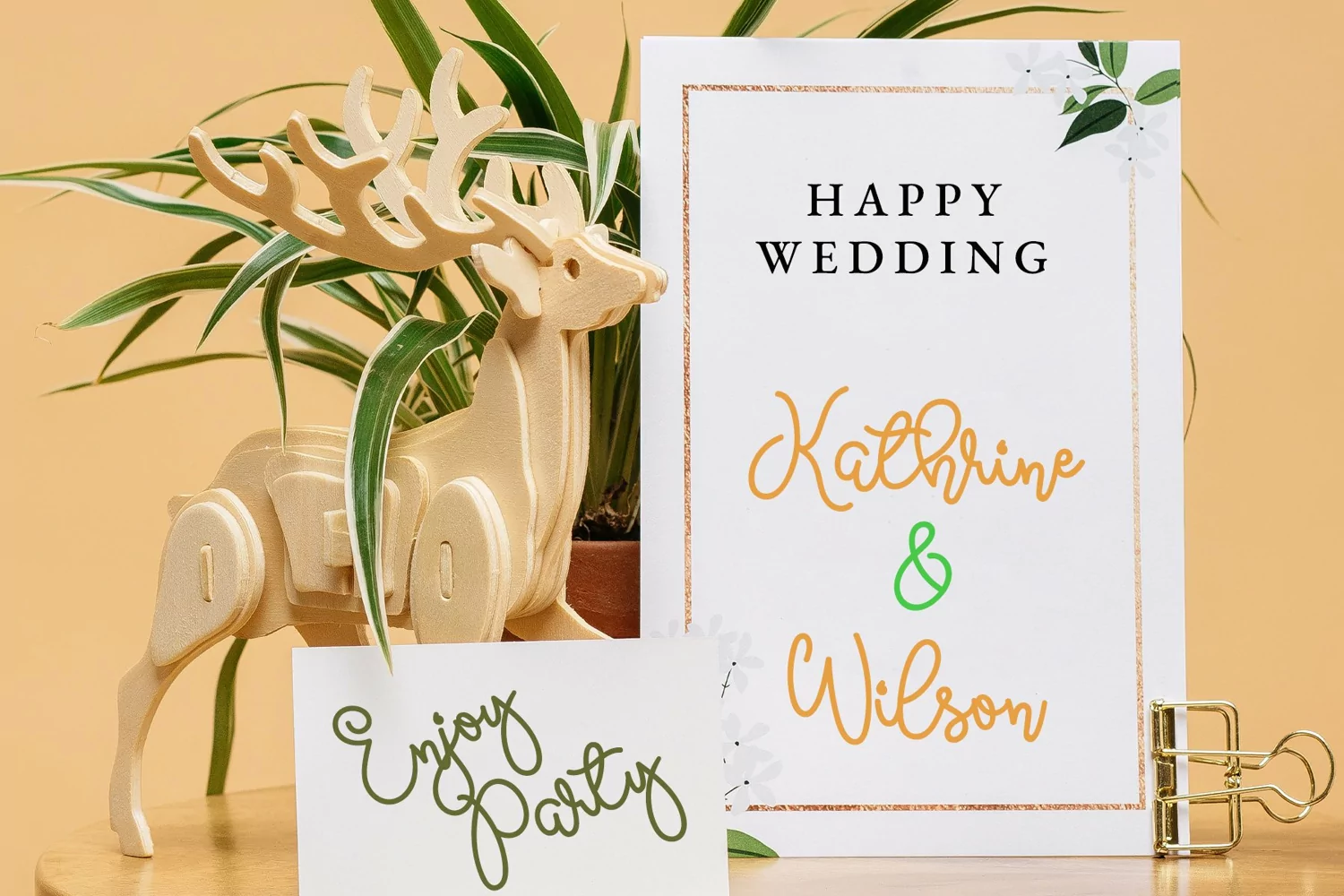
Millesh Script is simple, cute, and sweet monoline font. This font has unique flow to make design looks more quirky.
This font is so versatile for wide ranges of design projects, such as, branding, logo, signature, social media quotes, and others.